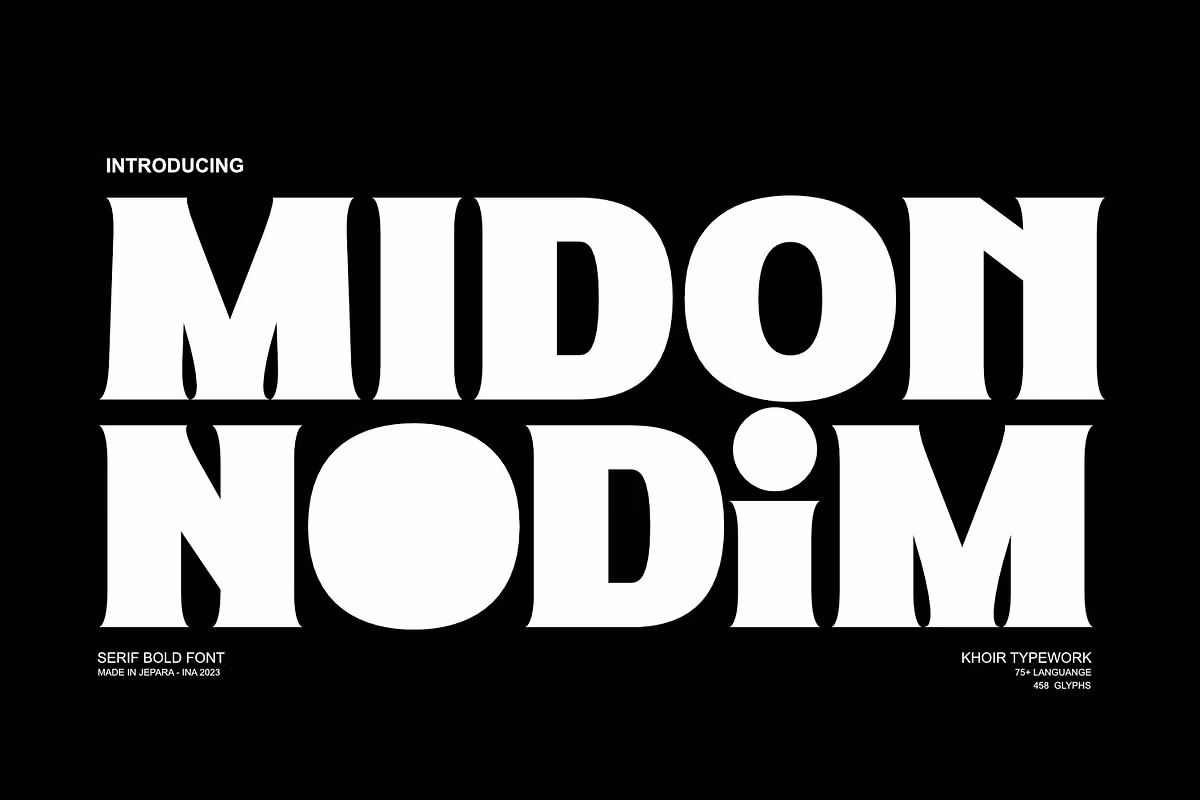
Midon - Serif Bold Modern Font Free Download is a striking, contemporary typeface that combines boldness with elegance. Its clean lines and powerful serifs make it perfect for fashion branding, editorial layouts, magazine titles, posters, and upscale product packaging. With a strong presence and high readability, Midon brings authority and modern flair to your typography.
The font’s bold structure is balanced by refined details, offering a sense of luxury and professionalism. Whether you're working on digital designs or printed materials, Midon holds up beautifully in both large headlines and standout logos.
It includes uppercase and lowercase characters, numerals, punctuation, and multilingual support. The font is fully compatible with all major design software and ideal for creatives looking to elevate their design game with a font that’s both classic and cutting-edge.